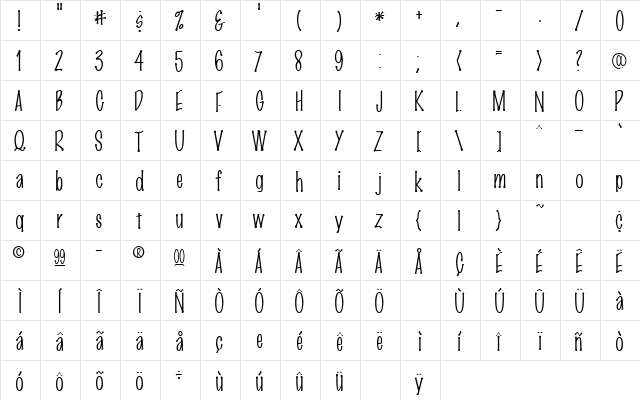
MarkerFinePoint-Plain Regular Font Preview
MarkerFinePoint-Plain Regular
Design Context for MarkerFinePoint-Plain Typeface
MarkerFinePoint-Plain is a composed and adaptable typeface that performs quietly and consistently across a wide range of design contexts.